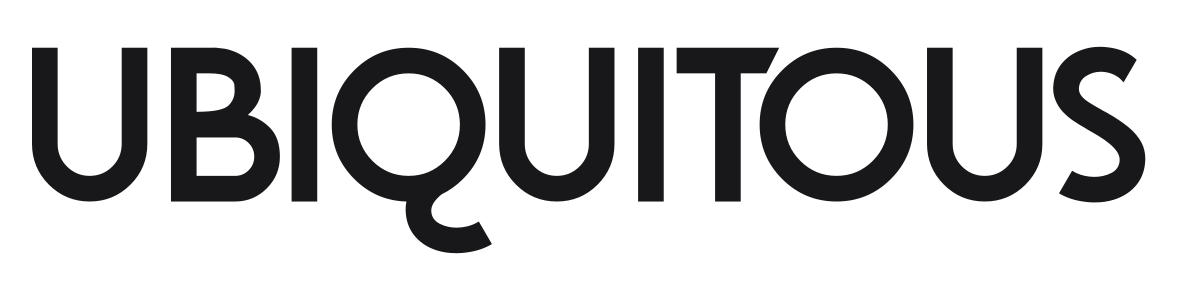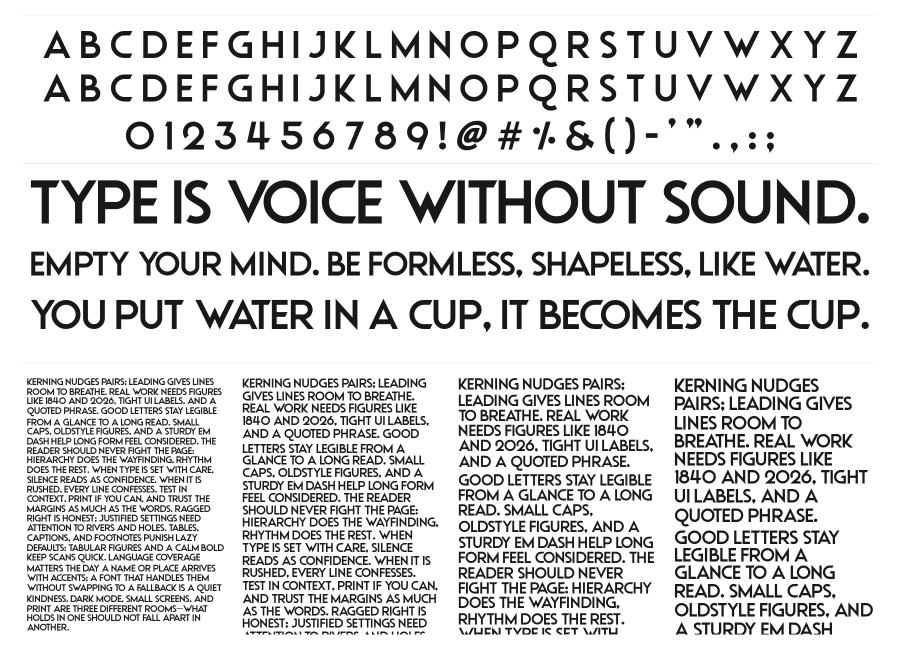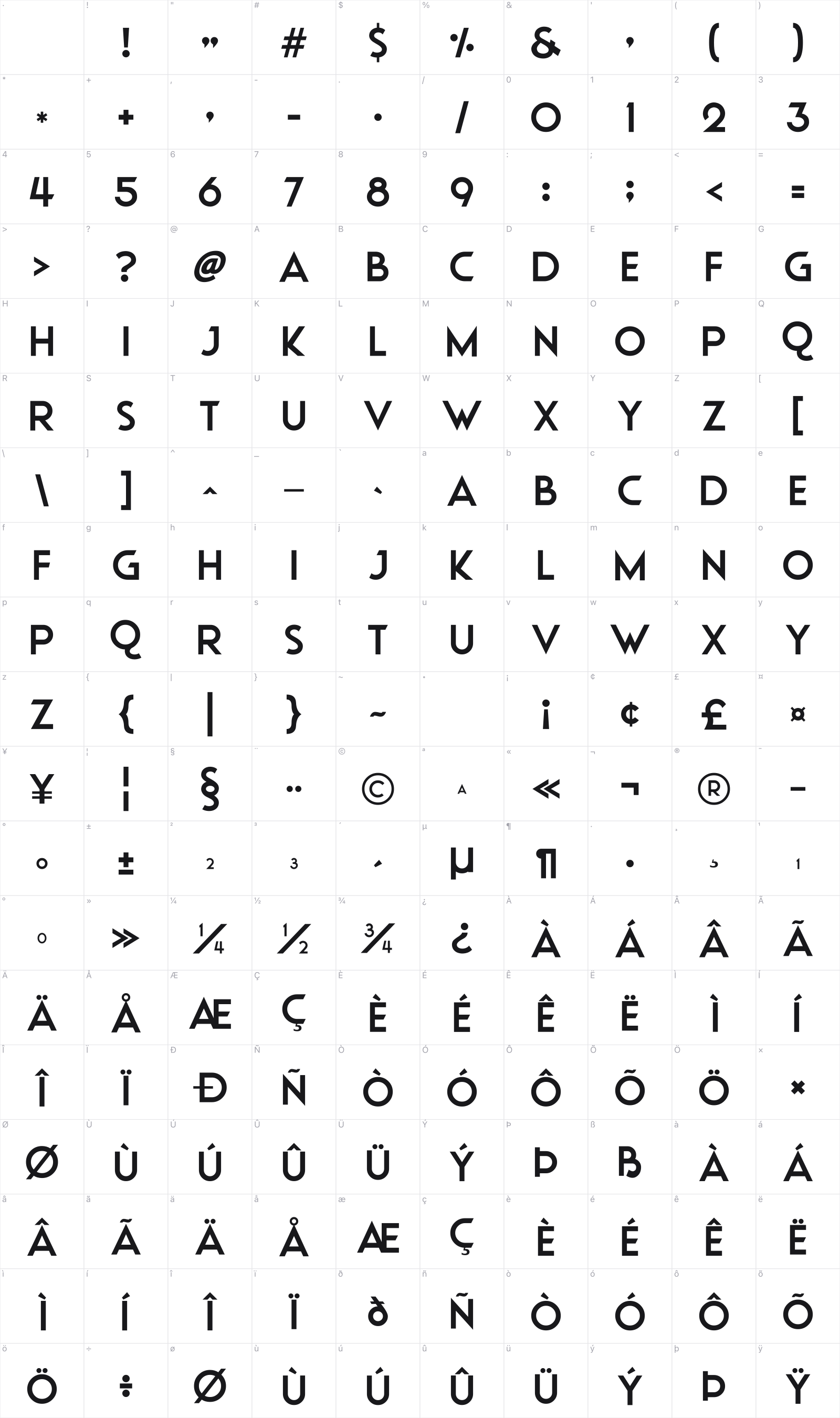
Ubiquitous
Ubiquitous is a geometric sans-serif with wide, evenly proportioned capitals and a clean near-monoweight stroke. It has enough geometric discipline to feel modern and structured, while subtle humanist touches keep it from feeling cold. Strong for logotypes, headlines, and any context where you want clarity without personality getting in the way.